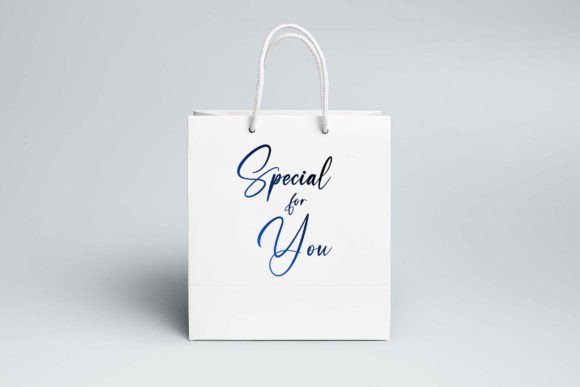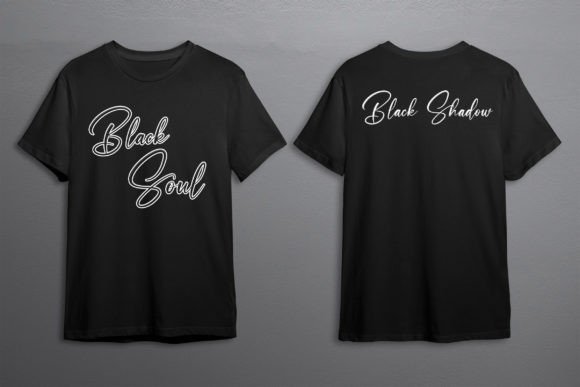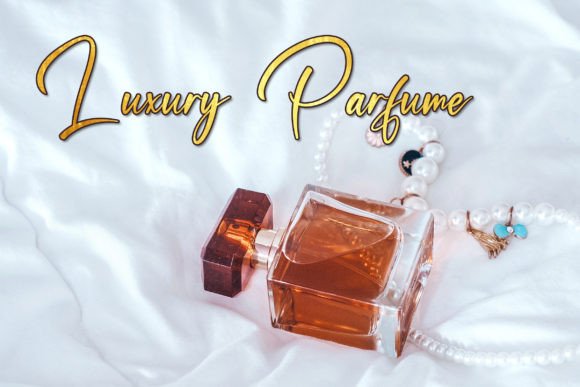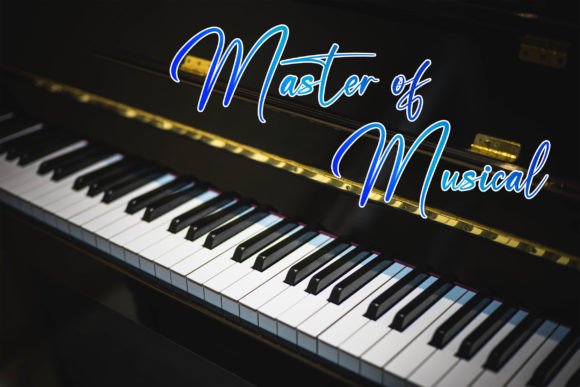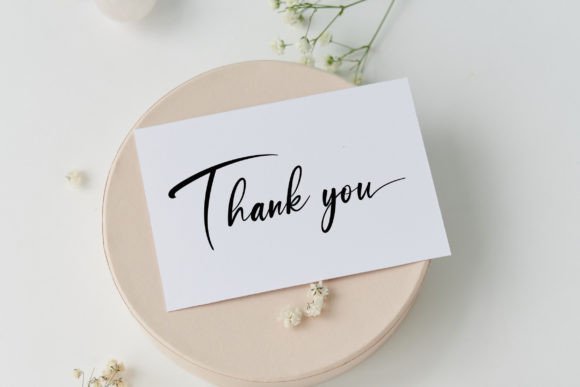
Introduction to Humaira Sign Font Font
Fonts play a crucial role in design, and the Humaira Sign Font font is a typeface that brings both character and versatility to any project. Whether you’re working on a branding project, a website, or a print design, the Humaira Sign Font font offers a unique style that can elevate your work.
Humaira Sign is a classy signature font, that features a very delicate and classy look.
So balanced and good look This font is perfect for designing t-shirts, invitations, magazines, photography and more.
Key Features of Humaira Sign Font Font
Why Choose Humaira Sign Font Font?
The Humaira Sign Font font is more than just a typeface – it’s a design tool that helps you communicate your message with style and clarity. Its unique character set and versatile design make it suitable for a wide range of applications, from elegant invitations to bold headlines.
With its carefully crafted letterforms and balanced proportions, the Humaira Sign Font font ensures readability and visual appeal across all mediums.
What makes Humaira Sign Font font special?
The Humaira Sign Font font stands out with its unique design, exceptional readability, and versatility across various design applications.